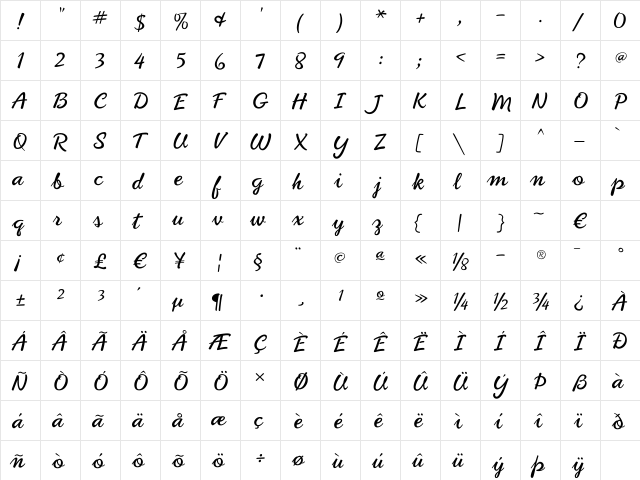
PhoenixScript Upright Regular
| Foundry | by Richard A. Ware |
Design Context for PhoenixScript Upright Typeface
PhoenixScript Upright brings a calligraphic fluidity to the page — its connecting strokes and expressive curves give it an unmistakably human quality.
Font Pairing: Combine PhoenixScript Upright with a simple geometric sans for maximum contrast — the tension between flowing curves and clean structure is a classic typographic pairing.
Pro Tip: Use PhoenixScript Upright for short runs of text — names, titles, or taglines. Extended body copy in script faces tires the eye quickly.